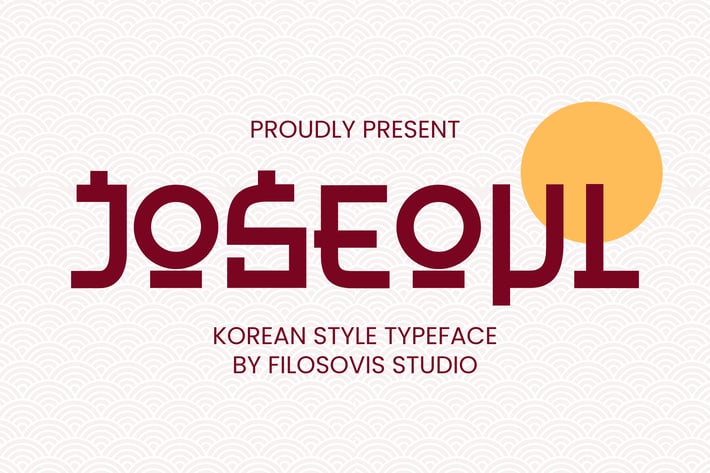
Joseoul | Korean Style Typeface
Joseoul font would be perfect for any Korean-themed project such as branding, restaurant menu, labels, posters, and more.